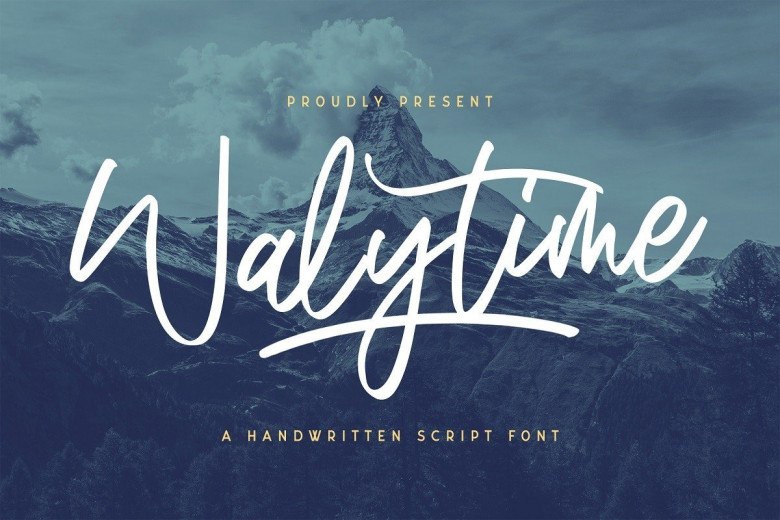
Walytime Handwritten Script Font
Walytime Handwritten Script Font is a modern script, full of personality and curves. This font was designed to give natural handwritten look in a digital world.
This is suitable for quotes, invitations, stationery, wedding design, logos, watermarks on photography, signatures, branding, advertisement, album covers, business cards, clothing, magazines, posters, and more! Also support multilingual.